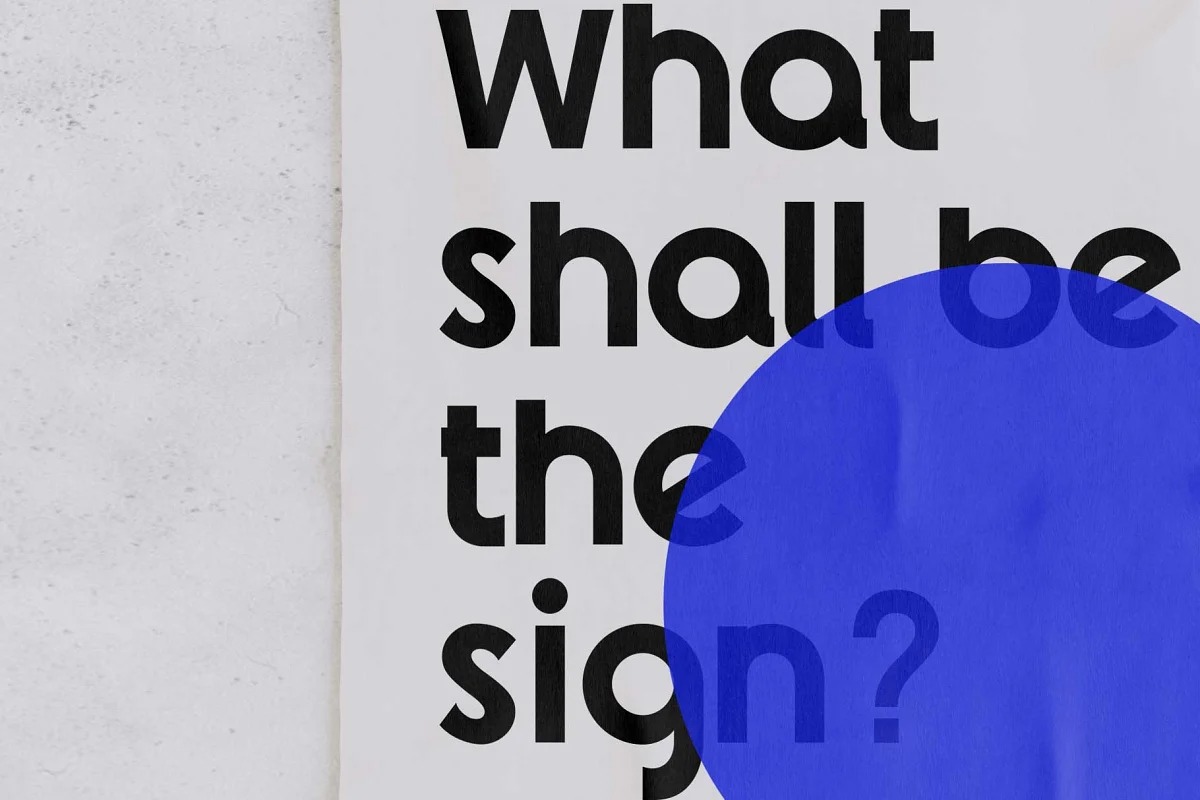
Reost Sans Serif Font
This is a versatile sans serif font family created by Ryul Davidson in the spirit of modern neo humanistic fonts. Their basic prototype was derived from Along Sans Geometric Font Family. Cute, but strictly on their own nature is the dominant keyword for this project. Your design work will be fun and enjoyable because 62 ligatures are ready. And Creative 20 Alternates are included.